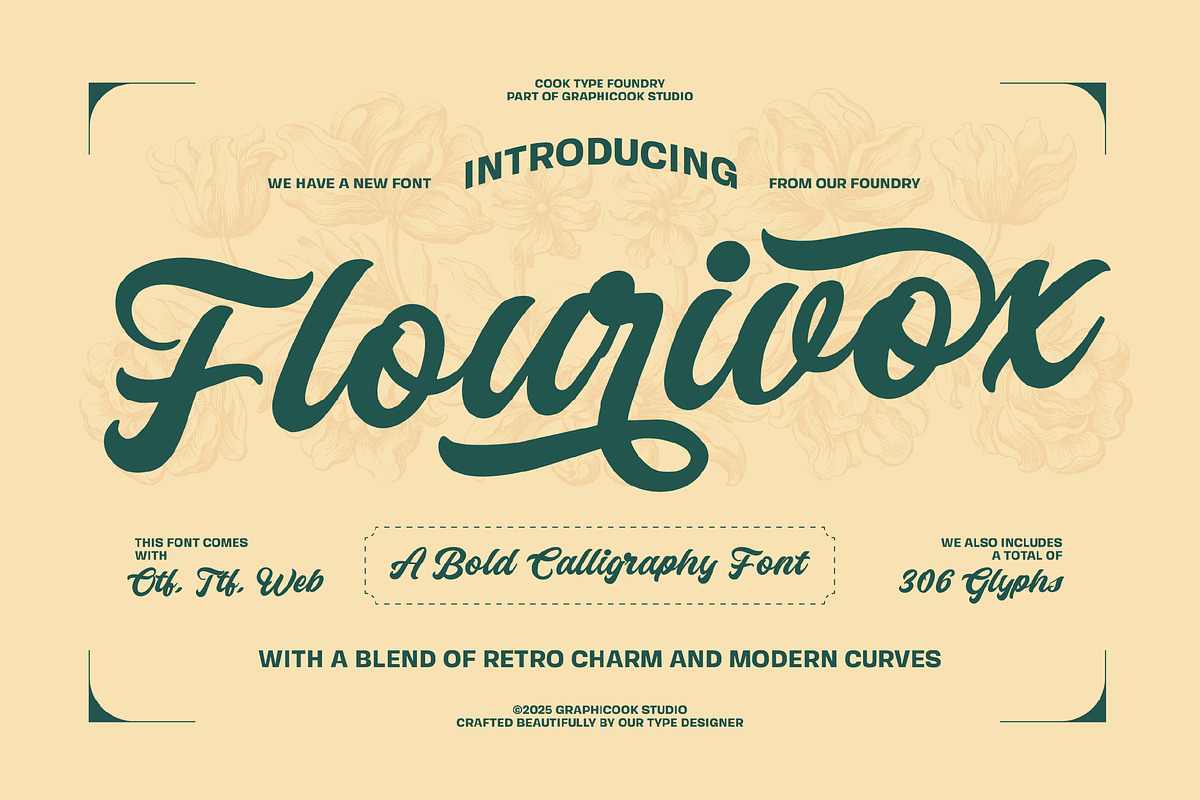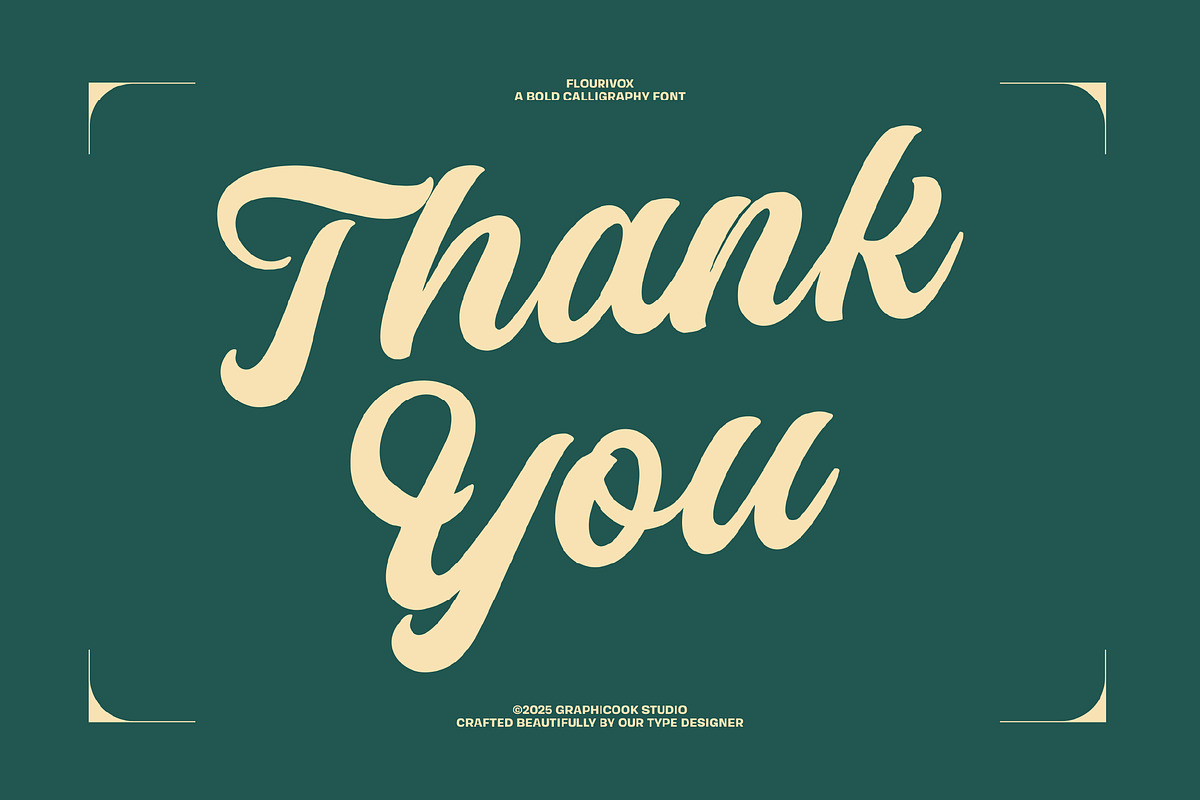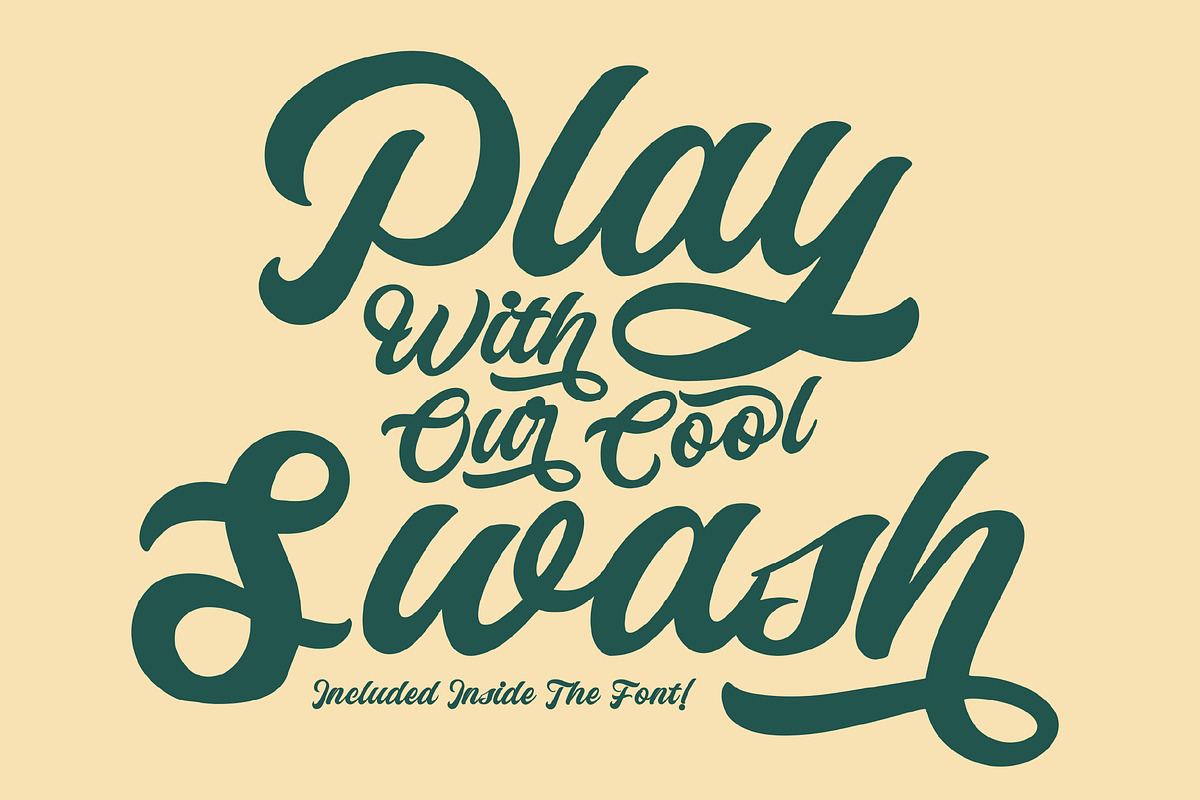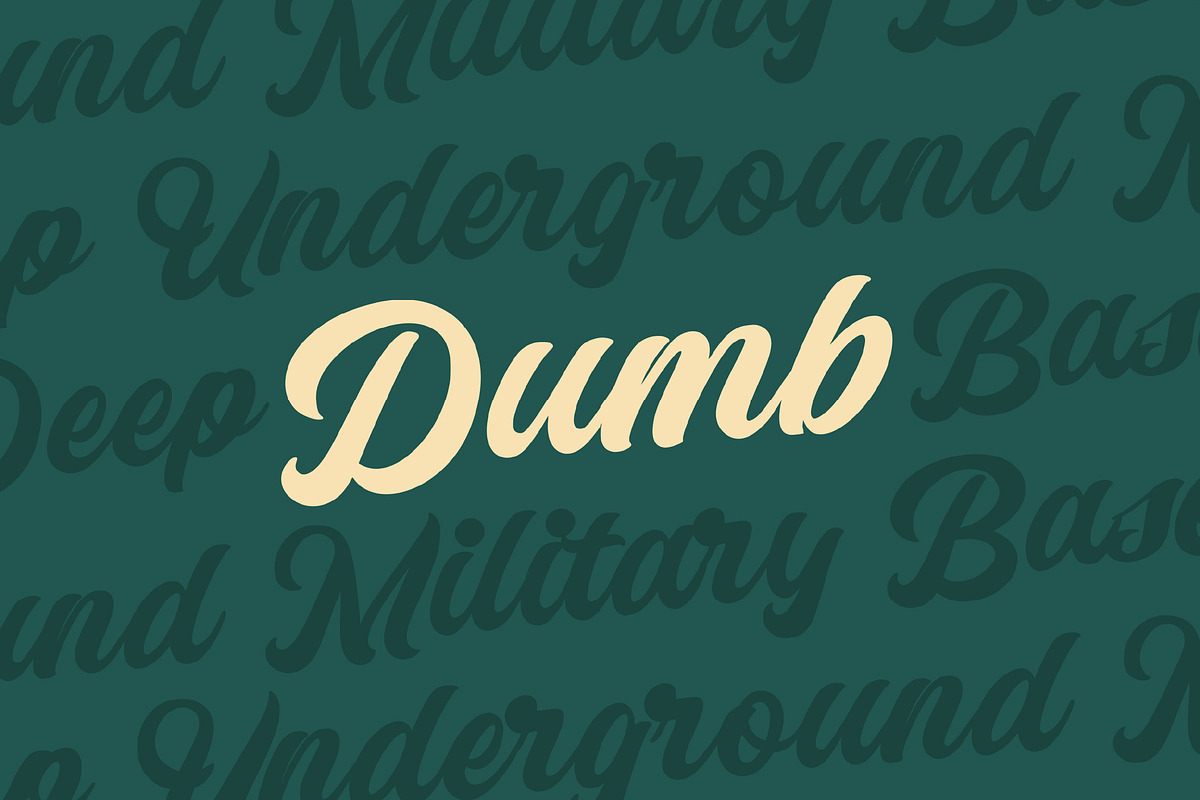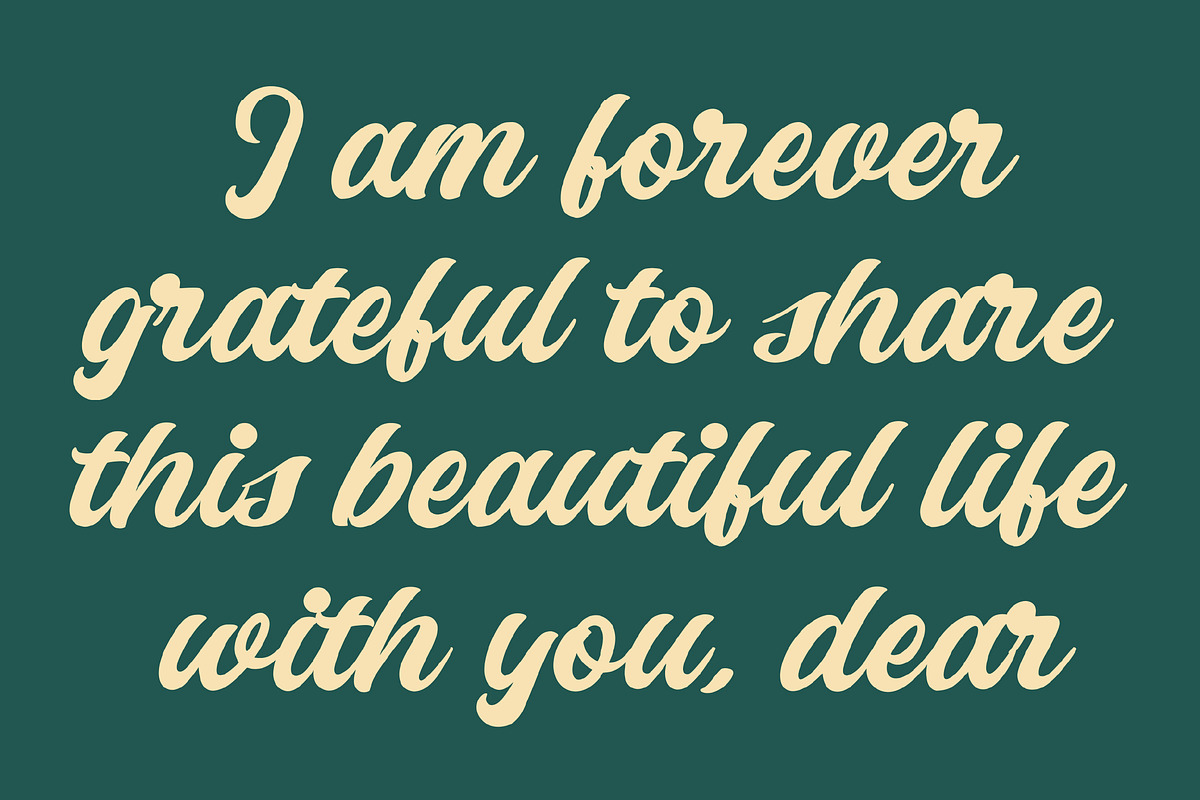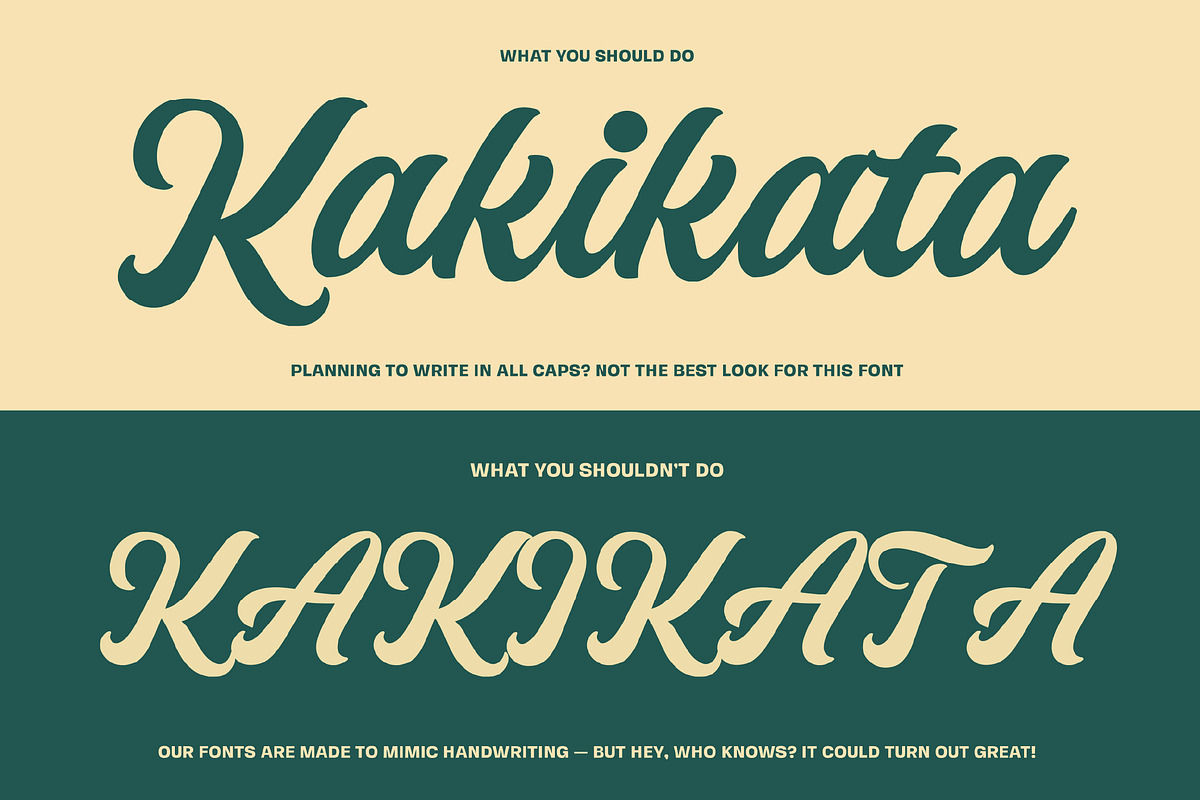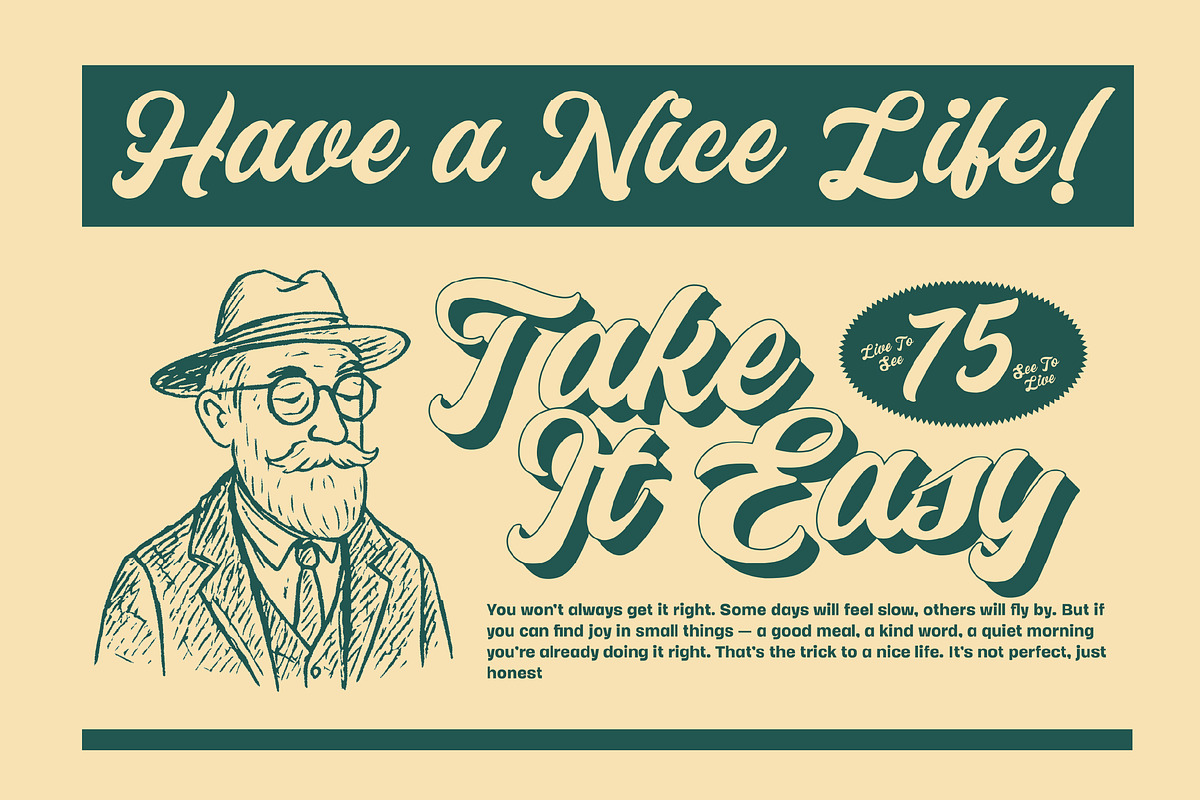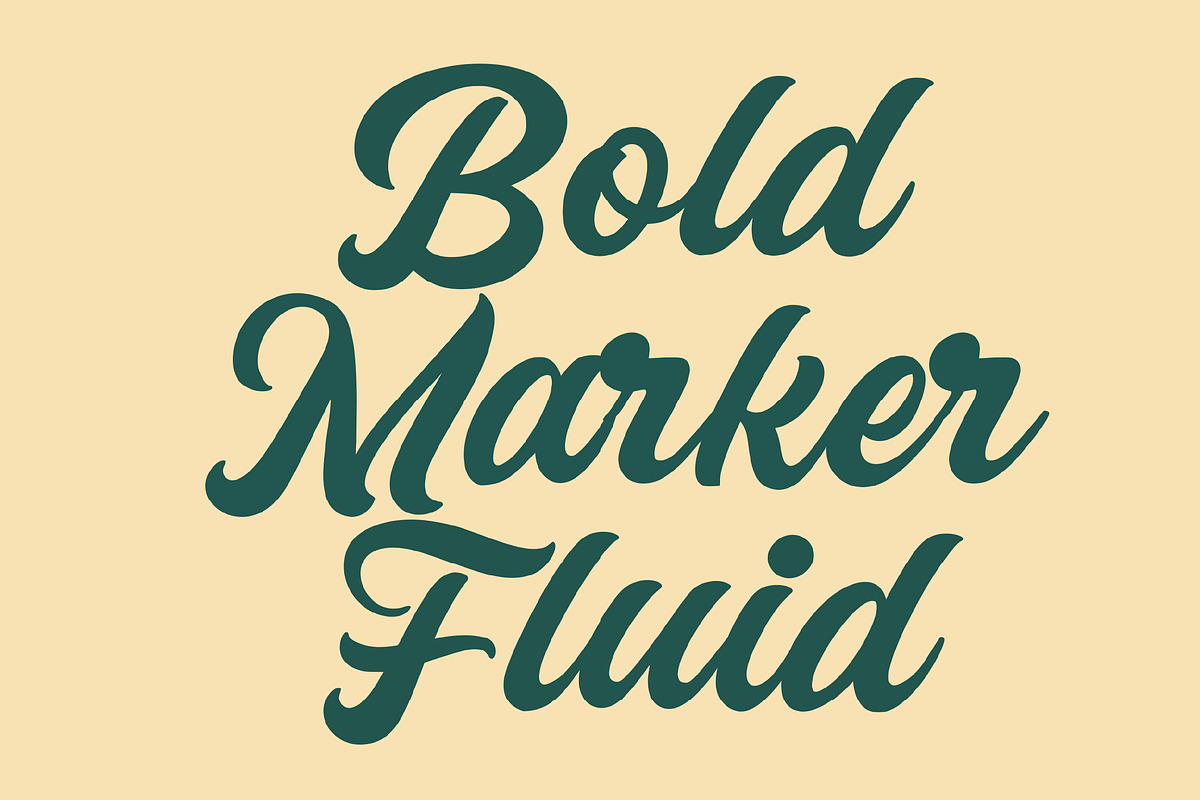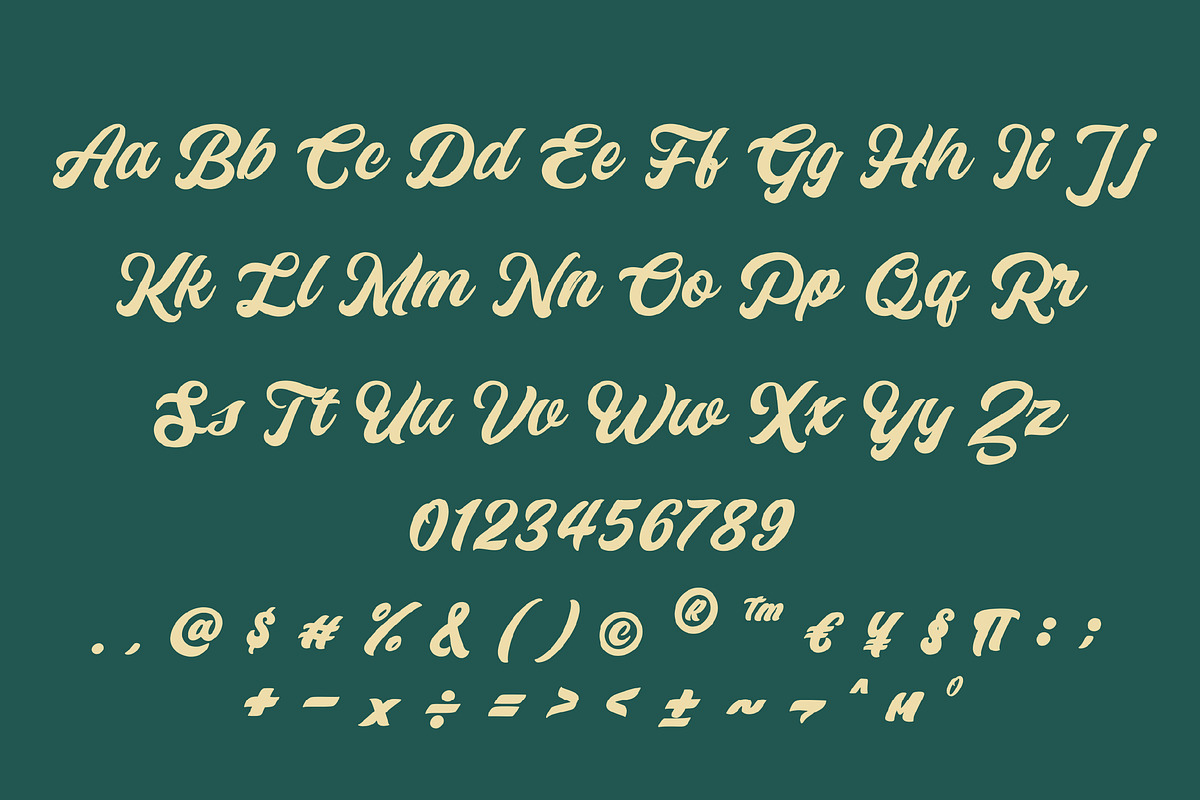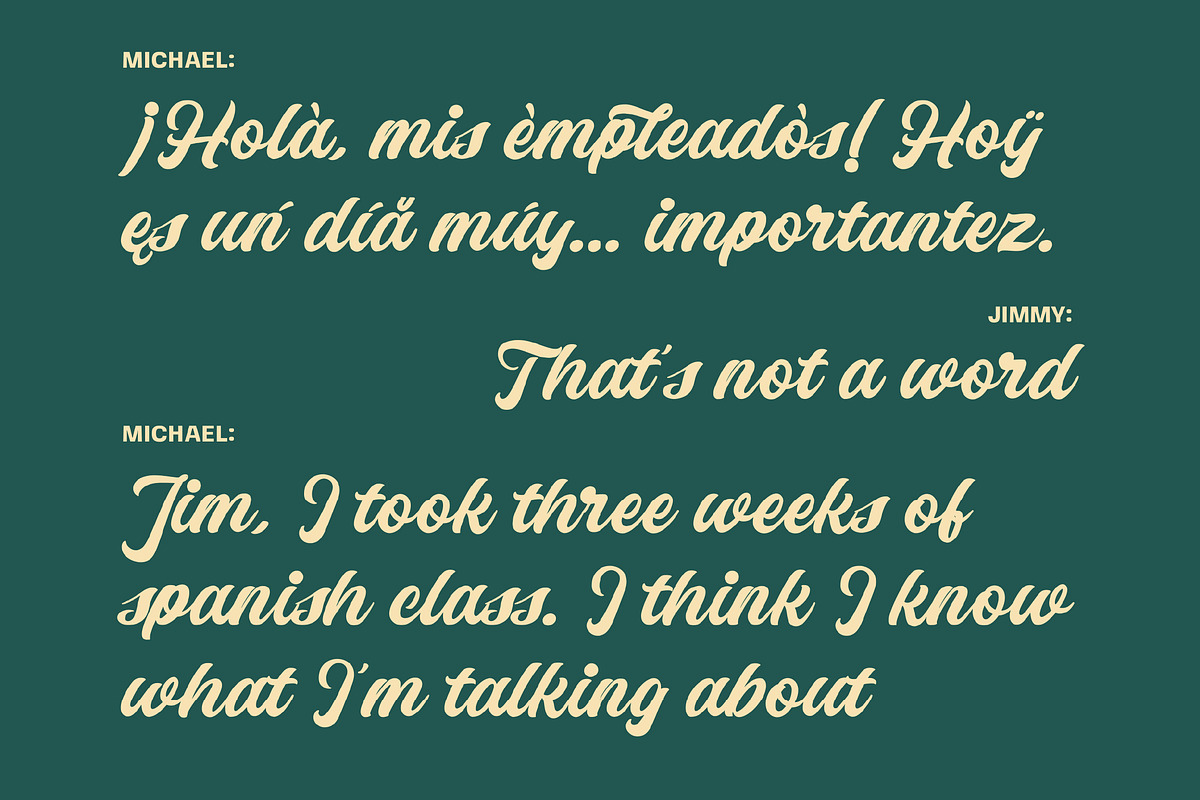
Flourivox
Flourivox is a brush script font that mimics handwriting and brush lettering. It’s ideal for logos, product labels, and wedding invitations.
It is perfect for headlines, logotypes, magazines, packaging, quotes, movies, games, cover albums, book covers, and flyers, it's a perfect solution for creating eye-catching designs that stand out in any context.